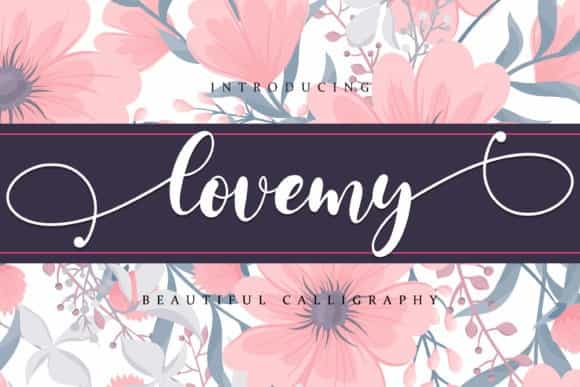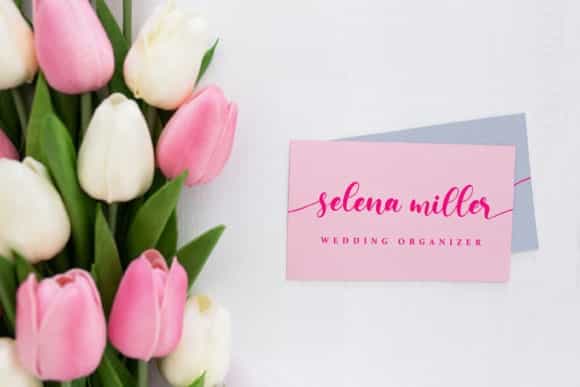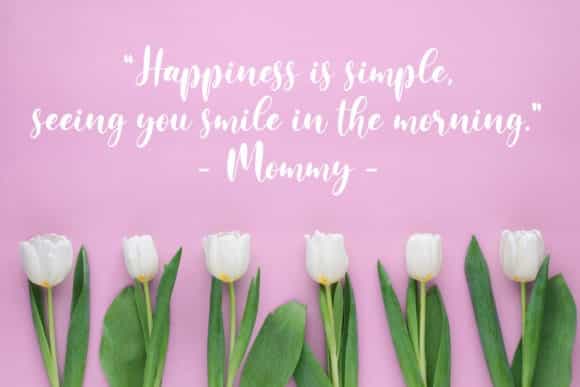
Lovemy is a wonderful script that gives you the feeling of being classy, elegant and modern. It is very well suited for a great number of tasks! This font is PUA encoded and this implies that you can get all of the magic glyphs and swashes with ease. It is also loaded with many special features such as the alternate glyphs and ligatures.